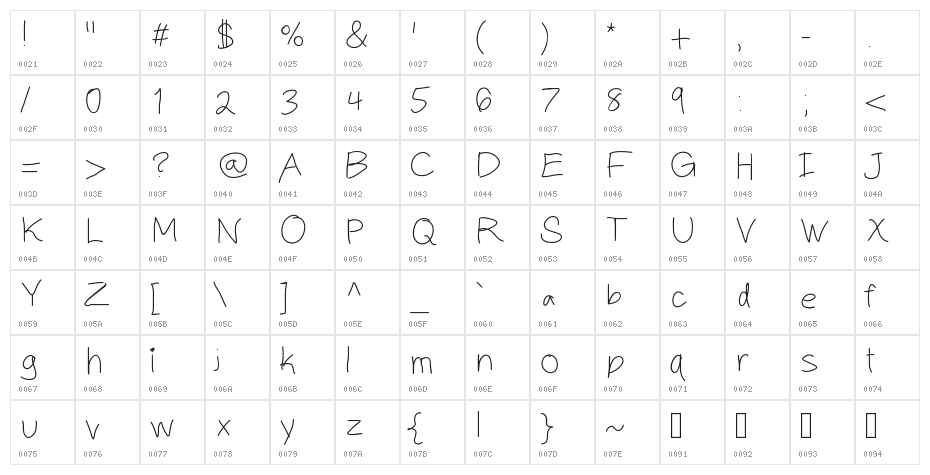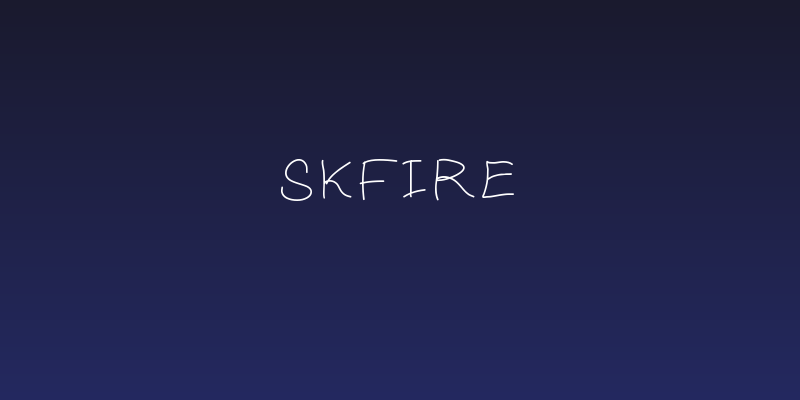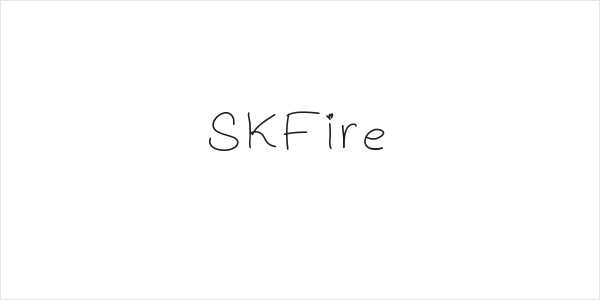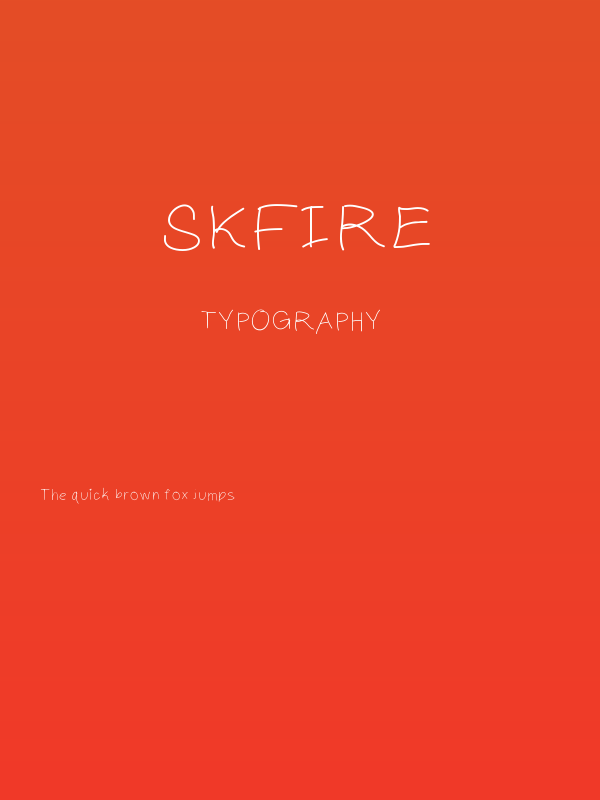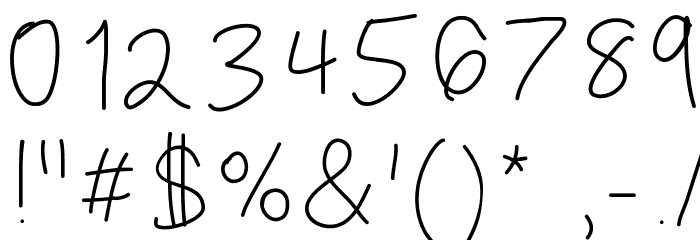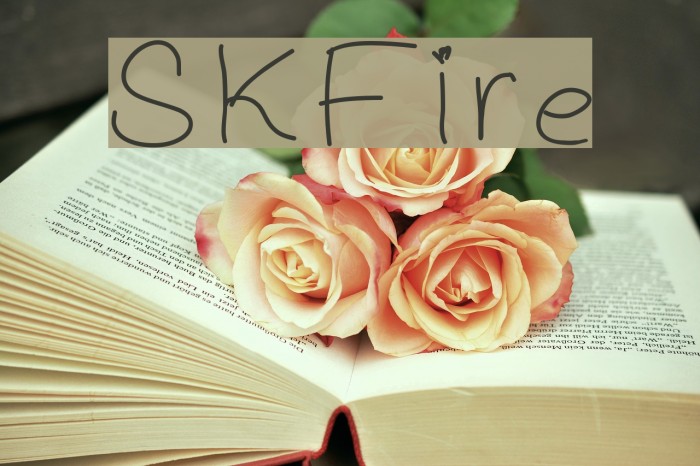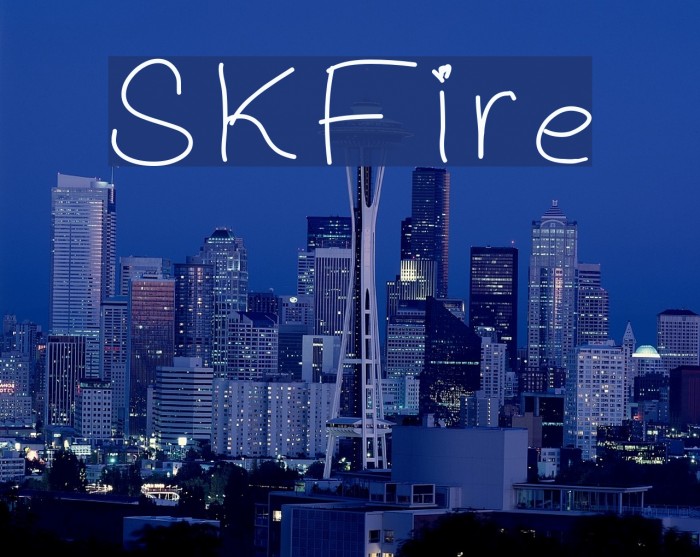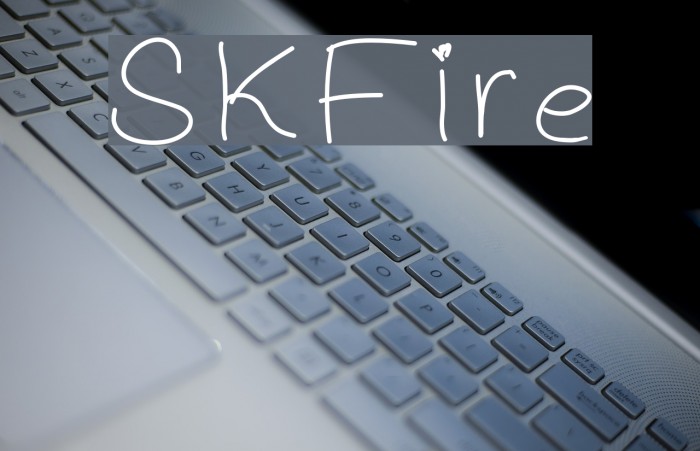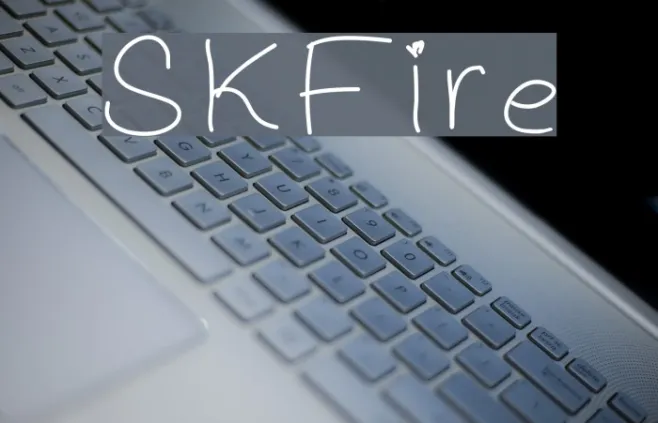
SKFire Font
SKFire Description
This font exhibits a playful and informal handwritten style, characterized by its irregular and slightly whimsical strokes. The letters have a casual, friendly appearance with a slight tilt, giving it a dynamic and lively feel. The uppercase and lowercase letters maintain a consistent style, with rounded edges and a natural flow that mimics real handwriting. The numerals and special characters follow the same aesthetic, ensuring a cohesive look across all elements. This font is perfect for projects that require a personal touch or a creative, informal vibe.
| Proposed Projects | Ideal for greeting cards, children's books, personal blogs, and creative branding projects. |